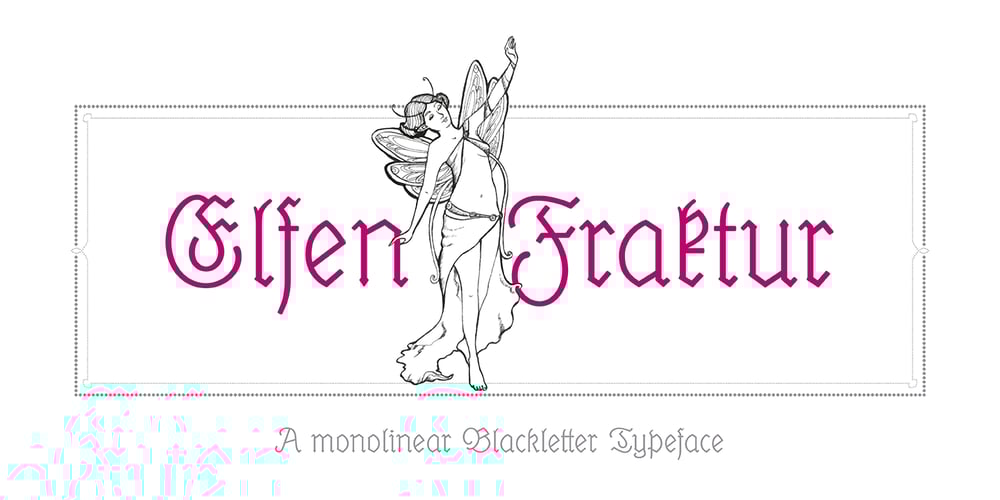
Elfen Fraktur Font Family was designed by Ralf Herrmann, M. Beck and published by FDI. Elfen Fraktur contains 3 styles and family package options. Elfen-Fraktur is monolinear blackletter typeface, that was originally designed by M. Beck and published in 1919. This revival comes in two extended versions with a complete Latin 1 character set: Elfen-Fraktur A uses the original blackletter skeletons and is suitable for setting texts with traditional German typesetting and orthography rules. Elfen-Fraktur B includes modernized letter designs for a broader and more legible use in various languages. A free bonus is the set of 22 border elements called Elfen-Schmuck. Check out the type specimen PDF for more details and instructions.